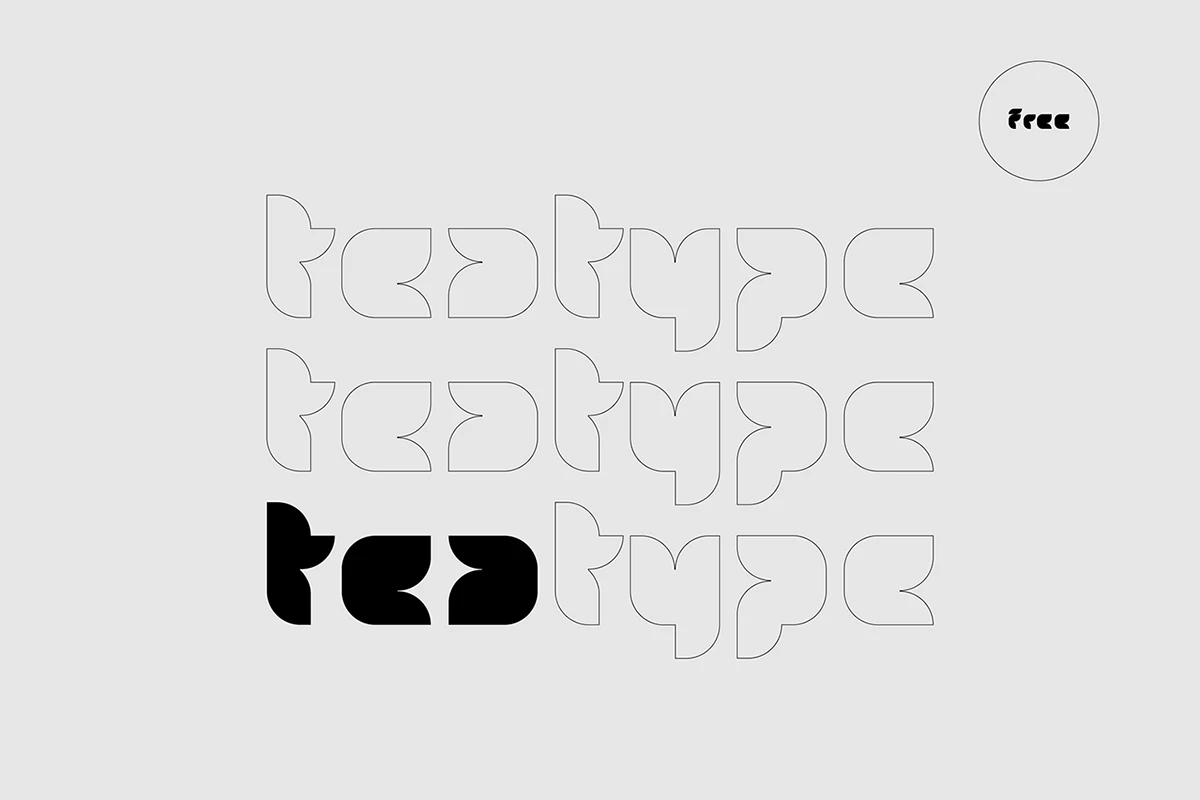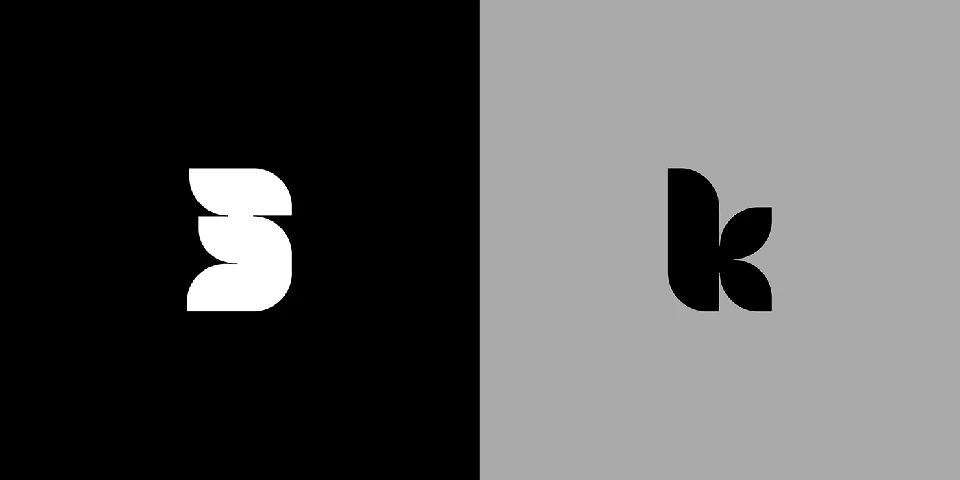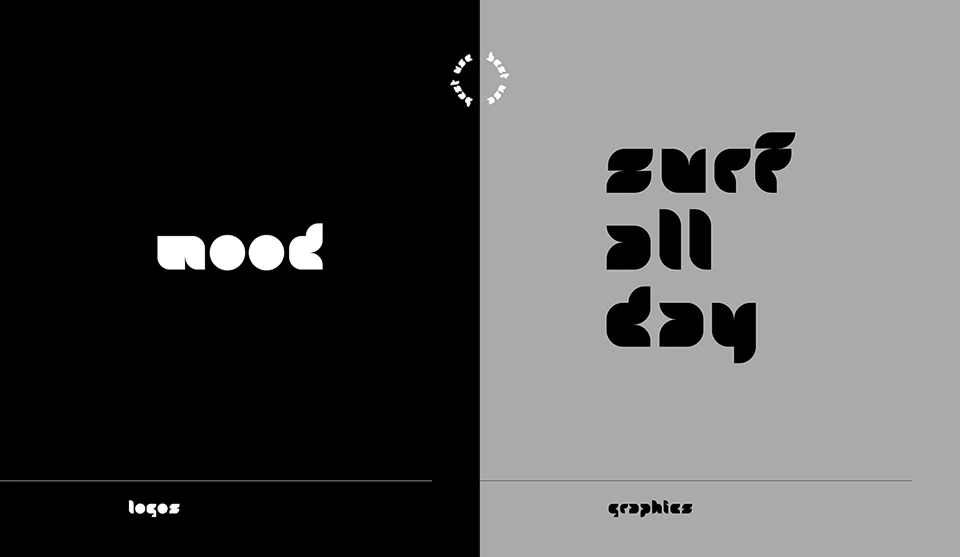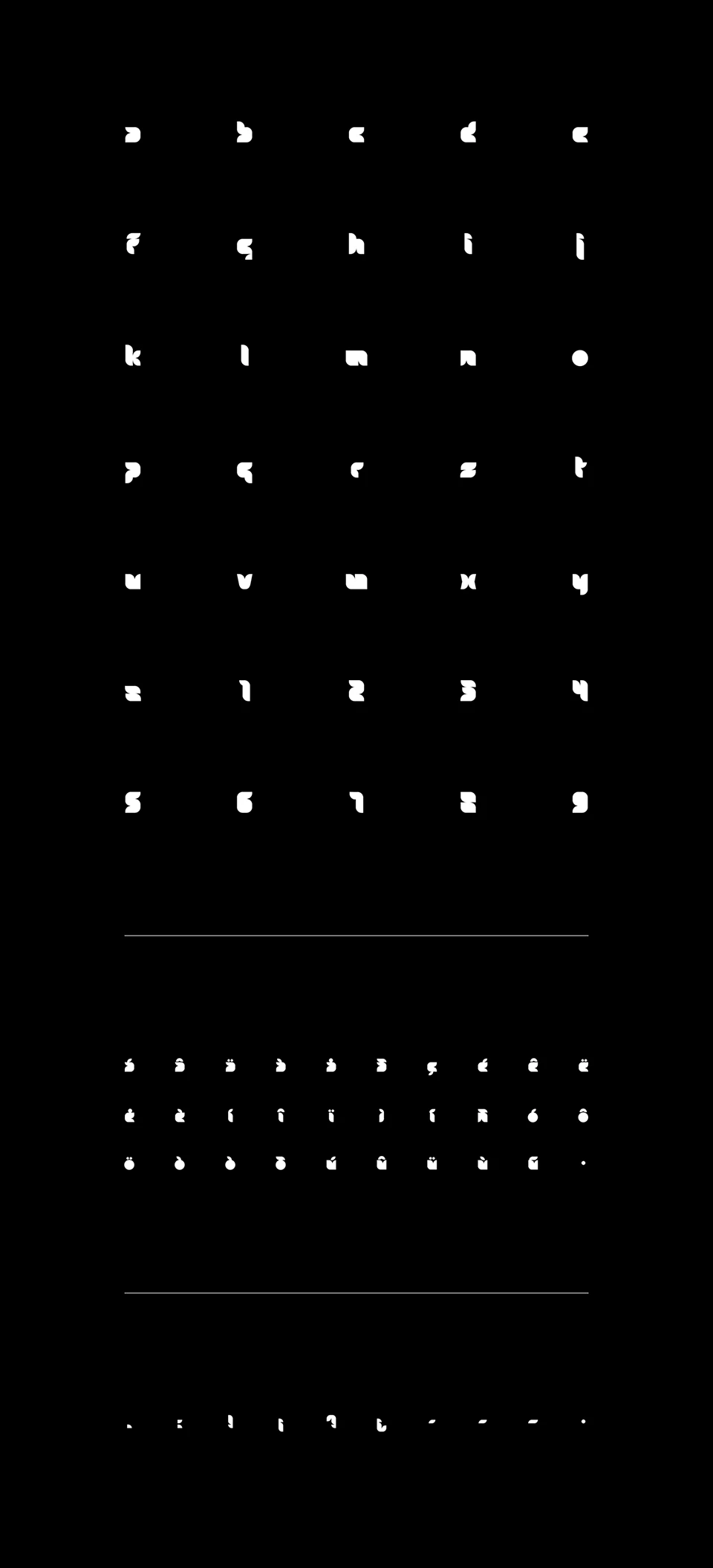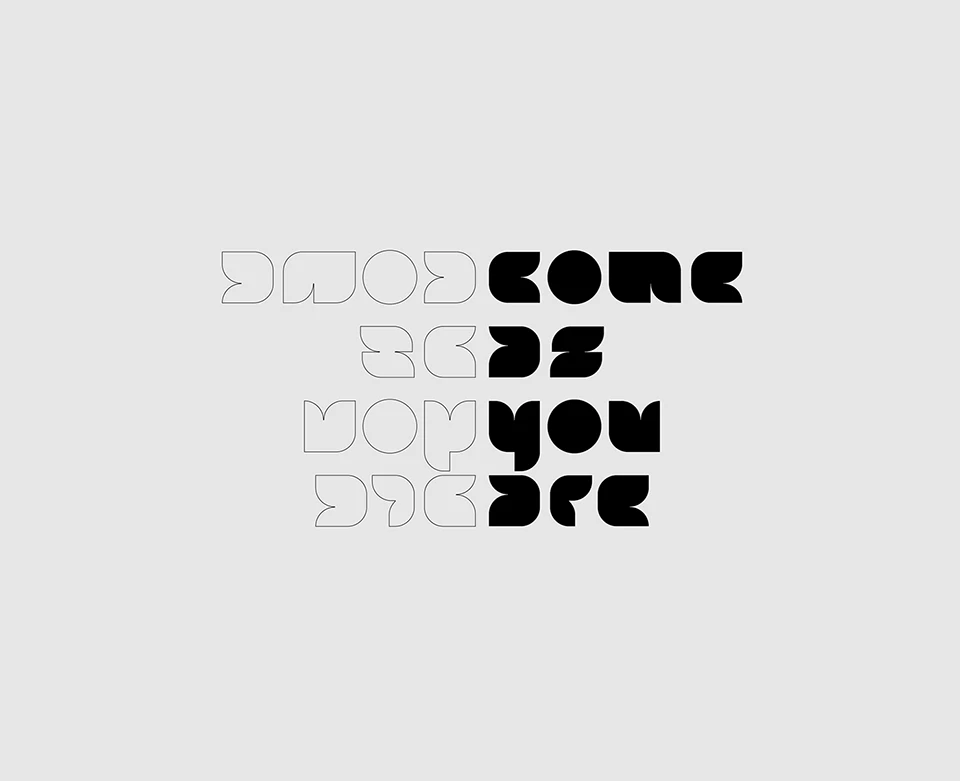
Tea Type Font
Tea Type is a bold and eye-catching display font, featuring an ultra-thick, modular, and geometric design that delivers a strong visual impact. Its bold strokes and precisely defined shapes create a commanding presence on the page. The modular structure gives it a unique, almost architectural quality, making it ideal for designs that demand attention and confidence. Whether you’re crafting impactful headlines, eye-catching posters, or establishing a contemporary brand identity, Tea Type ensures your message is conveyed strongly and powerfully, making every exclamation point count.